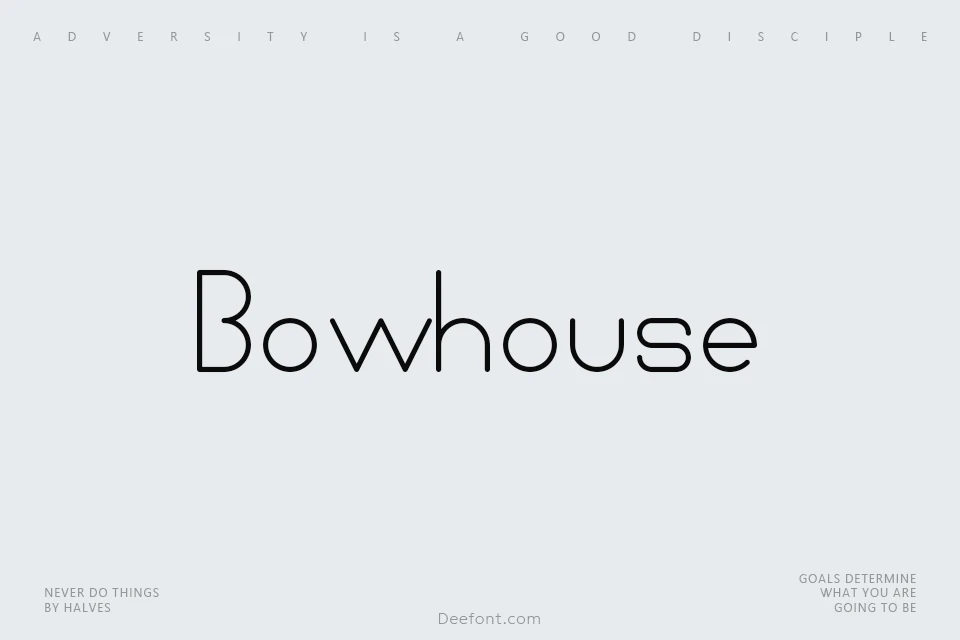
Bowhouse Font Family
Bowhouse Font Family is an elegant sans-serif typeface inspired by the Bauhaus movement, designed by Adrian Candela. The font family consists of four distinct weights – Light, Regular, Bold, and Black – offering versatility in design applications. Its modern geometric forms and clean lines reflect the Bauhaus aesthetic principles of simplicity and functionality. The typeface supports 37 languages and features 206 glyphs, making it suitable for various design projects including web design, print materials, and branding. While initially released for personal use, Bowhouse has since become available under a Creative Commons Attribution-NoDerivs License, allowing for both personal and commercial applications.